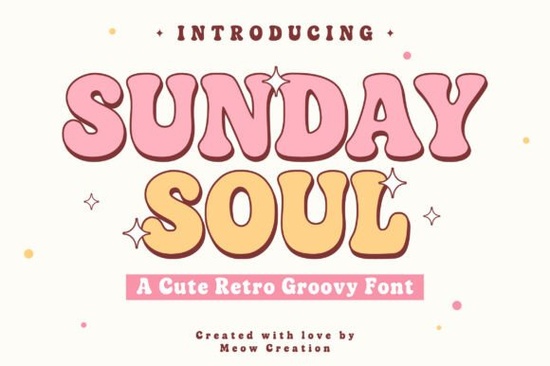
If a project needs to feel fun and relaxed, choosing the right display font makes all the difference. The Sunday Soul font gives you a ready-made retro look with its bold, rounded letters. It captures the groovy, carefree spirit of the 70s without trying too hard.
This font fits into the display font category, which means it’s built for headlines, logos, and short phrases rather than long paragraphs. Its smooth, bubbly shape makes it stand out in any design. If you sell products on print-on-demand sites or run a small creative business, a font like this helps your work feel more personal and distinctive.
What exactly makes this font different from a standard bold font?
Most bold fonts are just thicker versions of a regular typeface. Sunday Soul is designed from the ground up with rounded curves and consistent, soft edges. This gives it a playful balance it’s heavy but not harsh. The letters feel almost three-dimensional, like they are inflated with air. That is what gives it that signature 70s bubble aesthetic.
For designers, this means you get a strong visual impact without needing to add extra effects or outlines. It works straight out of the box.
Is this the right choice for t-shirts, stickers, and merch?
If your audience likes retro themes or a lighthearted style, yes. The thick strokes make it easy to read from a distance. On a t-shirt, a single word in Sunday Soul becomes the main design element. For stickers, the rounded letters look great as cut-out vinyl decals.
How does it compare to other retro display fonts?
Sunday Soul is squarely in the 70s vibe. It is organic and smooth. It pairs well with sunburst graphics, tie-dye patterns, and warm color palettes like mustard, avocado, and burnt orange.
Where can you use Sunday Soul for best results?
Because this font is so bold, it works best when it is the star of the design. Here are a few practical applications:
Vintage posters and album art
Whether you are designing for a music festival, a themed party, or a podcast cover, this font sets the right mood. Keep the background simple with a radial gradient or a solid color block.
Branding and small business logos
Small businesses that want to look friendly and approachable can use this font for their main wordmark. It works especially well for bakeries, vintage clothing shops, and creative studios.
Quotes and social media graphics
Short, uplifting quotes in Sunday Soul feel warm and nostalgic. Use it on Instagram posts or printable wall art. Pair it with a clean sans-serif font for the rest of the text to keep it readable.
Party invitations and greeting cards
The playful shape makes it perfect for birthday invites, New Year’s Eve parties, or any casual celebration.
Quick tip for your first try: Before finalizing your design, test Sunday Soul in lowercase. The uppercase letters are very bold and wide. Using lowercase can balance the design better for longer words. Also, try it on a dark background with a bright font color the contrast will make the bubble effect pop even more.